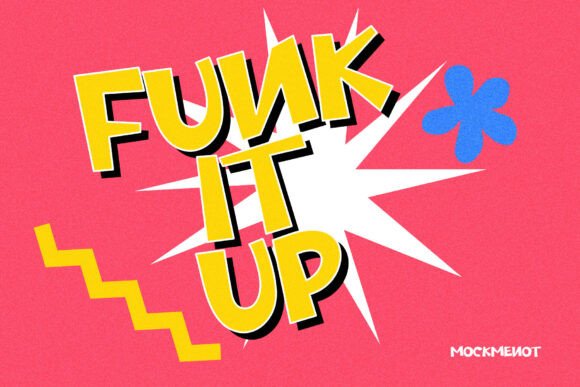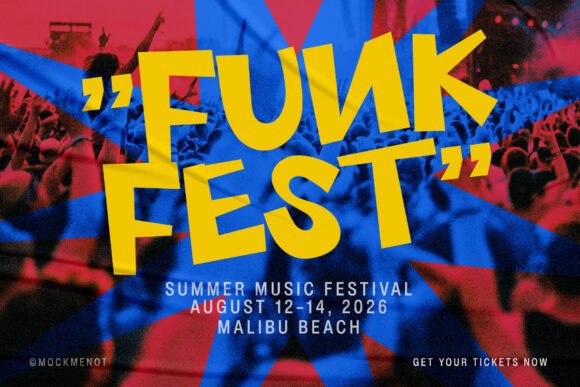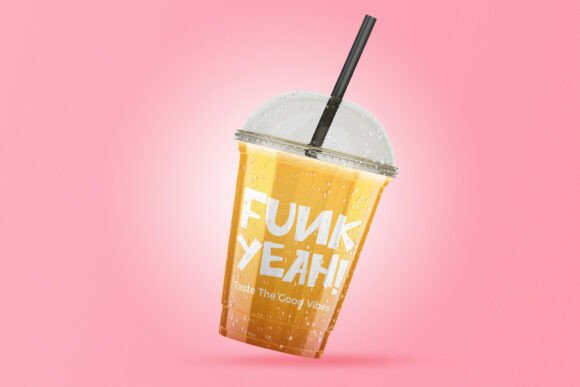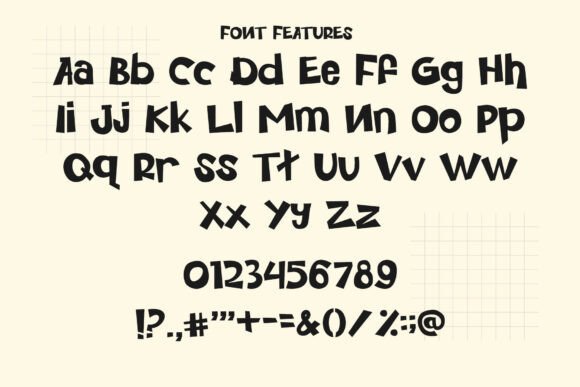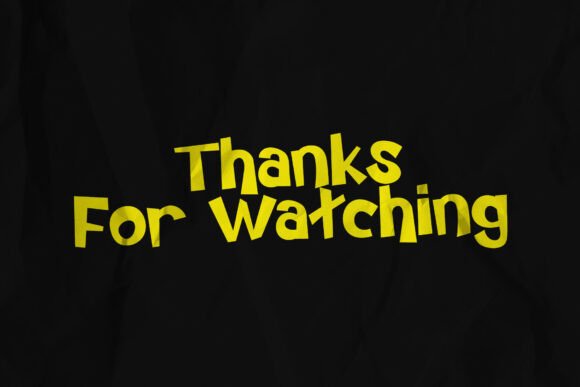
Funk Yeah Font: Elevate Your Designs with a Bold, Playful, and Energetic Typeface
In the world of design, fonts play a crucial role in conveying the tone and personality of a brand or project. If you’re looking for a typeface that exudes fun, modernity, and character, look no further than the Funk Yeah Font. This bold, playful, and energetic display font is designed to make your designs stand out instantly, adding a vibrant and expressive touch that grabs attention and leaves a lasting impression.
The Funk Yeah Font: A Quirky and Funky Personality
Funk Yeah is a display font that boasts quirky shapes and a funky personality, making it perfect for creating eye-catching visuals that feel fresh and exciting. Its bold and energetic design ensures that your message is conveyed with confidence and style, whether you’re working on branding, posters, packaging, or social media content.
Key Features of the Funk Yeah Font
- Bold and Playful Design: Funk Yeah Font features a bold and playful design that is sure to grab attention and make your designs stand out.
- Quirky Shapes: The font’s quirky shapes add a touch of whimsy and fun to your designs, making them feel modern and full of character.
- Energetic and Expressive: Funk Yeah Font is an energetic and expressive typeface that adds a vibrant touch to your designs, making them feel lively and engaging.
- Perfect for Display Text: This font is perfect for display text, making it ideal for use in headlines, titles, and other prominent text elements.
Use Cases for the Funk Yeah Font
Funk Yeah Font is a versatile typeface that can be used in a variety of design projects, including:
- Branding: Use Funk Yeah Font to create bold and eye-catching logos, business cards, and other brand materials that reflect your brand’s personality.
- Posters and Flyers: Add a touch of fun and energy to your posters and flyers with Funk Yeah Font, making them stand out and grab attention.
- Packaging: Use Funk Yeah Font to create eye-catching packaging designs that reflect your brand’s personality and style.
- Social Media Content: Add a touch of personality to your social media content with Funk Yeah Font, making your posts and updates feel more engaging and fun.
Why Choose the Funk Yeah Font?
If you’re looking for a font that can add a touch of fun and personality to your designs, Funk Yeah Font is an excellent choice. Here are just a few reasons why:
- Unique and Quirky Design: Funk Yeah Font features a unique and quirky design that sets it apart from other fonts.
- Highly Versatile: This font is highly versatile and can be used in a variety of design projects, from branding to social media content.
- Easy to Read: Despite its bold and playful design, Funk Yeah Font is easy to read, making it perfect for use in display text.
Tips for Using the Funk Yeah Font
To get the most out of Funk Yeah Font, here are a few tips to keep in mind:
- Use it Sparingly: While Funk Yeah Font is a bold and eye-catching typeface, it’s best used sparingly to avoid overwhelming your designs.
- Pair it with Other Fonts: Consider pairing Funk Yeah Font with other fonts to create a unique and visually appealing combination.
| Font Name | Funk Yeah Font |
| Author | Mockmenot |
In conclusion, Funk Yeah Font is a bold, playful, and energetic display font that is perfect for designers and crafters looking to add a touch of fun and personality to their designs. With its quirky shapes and funky personality, this typeface is sure to make your designs stand out instantly, adding a vibrant and expressive touch that grabs attention and leaves a lasting impression.